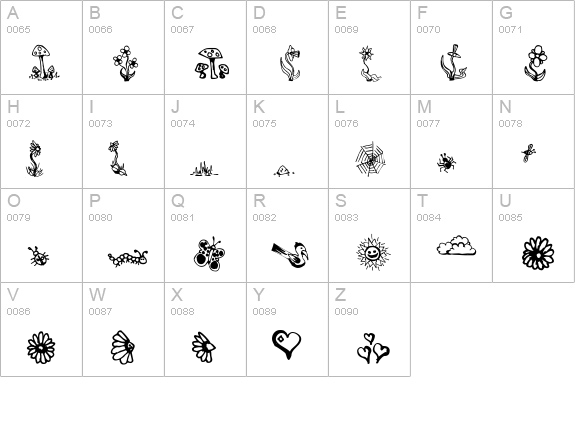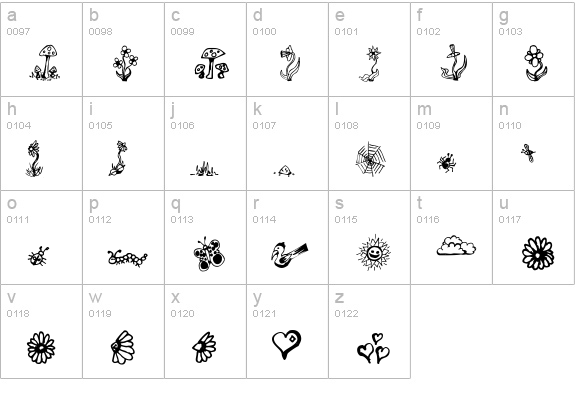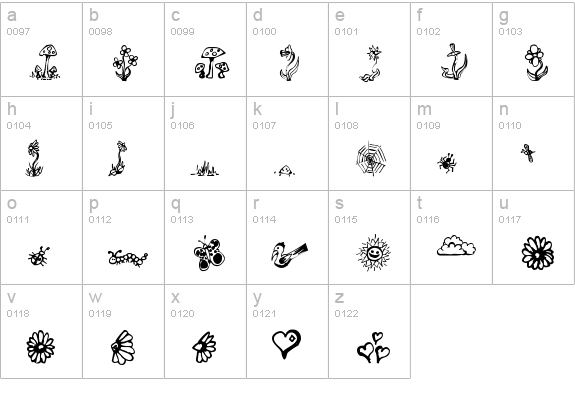
GardenDingbats Font Details
GardenDingbats font is a whimsical and charming collection of floral and nature-inspired symbols perfect for adding a touch of beauty to your design projects. This delightful font features a variety of intricate botanical elements such as flowers, leaves, and vines, making it ideal for creating lovely patterns, borders, or decorative accents. Whether you're working on a wedding invitation, a greeting card, or a nature-themed project, GardenDingbats font will surely bring a touch of elegance and charm. The best part? GardenDingbats font is available for free download at FontsMarket.com, allowing you to easily enhance your designs with these delightful garden-themed symbols without breaking the bank. So go ahead and add a touch of nature's beauty to your creations with GardenDingbats font today!